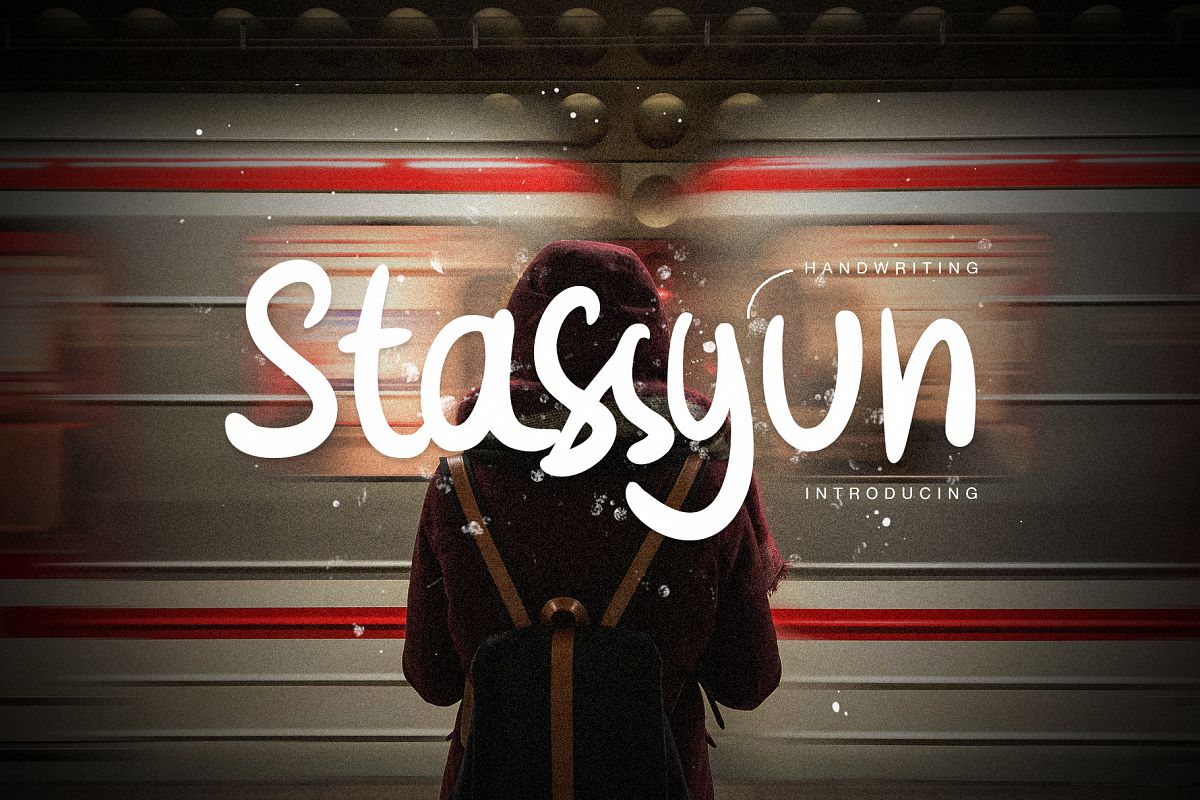
Stassyun Handwriting Font
Introducing
Stassyun Font, manual hand drawn from real brush, You can use it for
cover profile social media, instagram post, quote, labeling, clothing,
books,album covers, poster, any printable project .etc